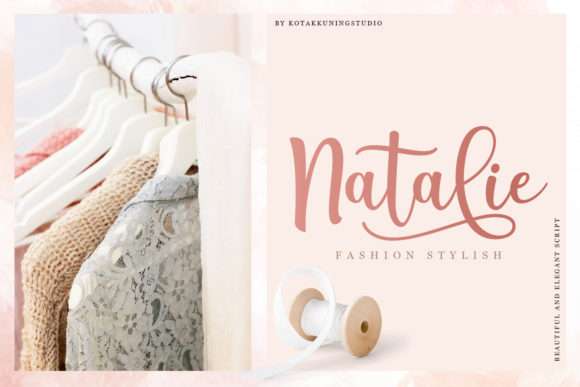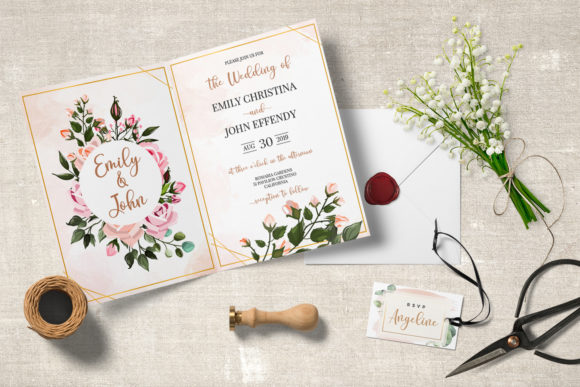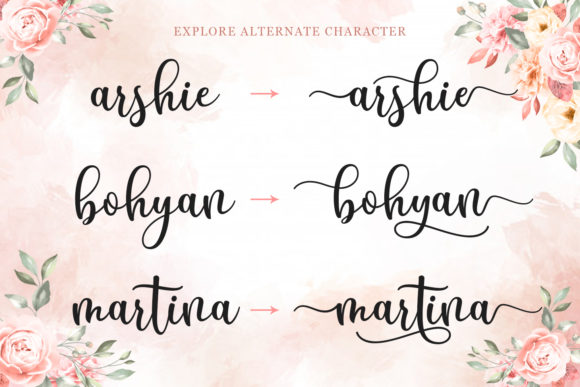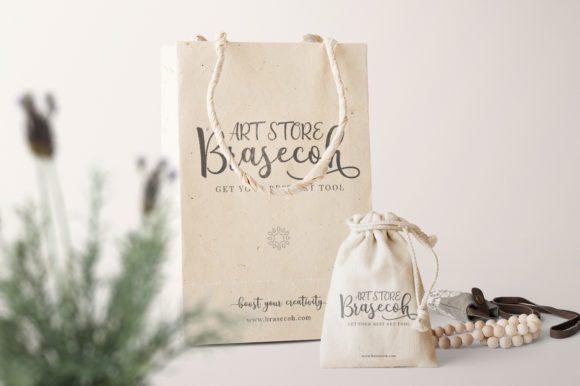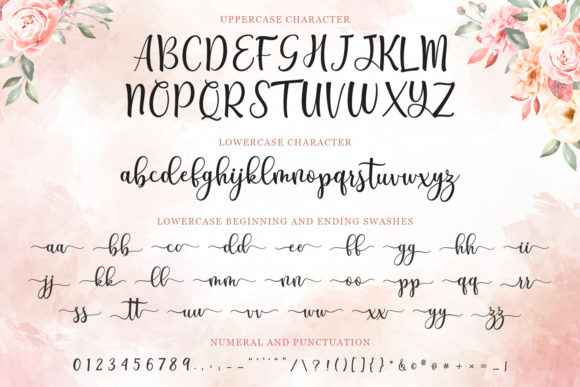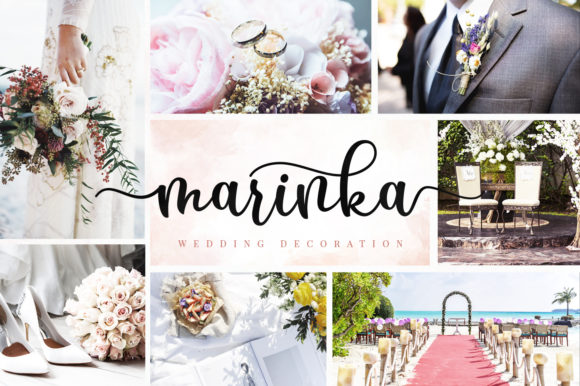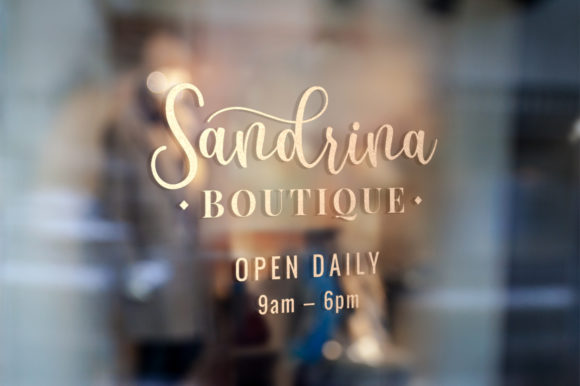
HomeScript FontsBreyhana Font Script Fonts Breyhana Font FacebookXPinterestWhatsApp Breyhana Font Poster 2 Breyhana Font Poster 3 Breyhana Font Poster 4 Breyhana Font Poster 5 Breyhana Font Poster 6 Breyhana Font Poster 7 Breyhana Font Poster 8 About Breyhana Font Breyhana is a sweet and stunning script that will easily add a personal feel to your next design idea. DOWNLOAD NOW People also explored Fallunt Font Sandwich Spread Font The Flowers Font Blesolen Font Social Media Networks Font Bee Love Font Circus Font Revalyna Font Runday Font 382 0 TagsBreyhana Font Previous articleBroomstx FontNext articleShington Script Font LEAVE A REPLY Cancel reply Comment: Please enter your comment! Name:* Please enter your name here Email:* You have entered an incorrect email address! Please enter your email address here Website: Save my name, email, and website in this browser for the next time I comment. Personal Use Free Alligator Font Personal Use Free Read more about this font Pelmeshka Personal Use Free Read more about this font Rennoya Personal Use Free Read more about this font Urkelian Personal Use Free Read more about this font BLOG Using Fonts in Digital Marketing: Tips to Strengthen Your Brand Identity In the realm of digital marketing, every visual element plays a crucial role in shaping a brand's identity, and fonts are no exception. The... How to Cut Any Font on Cricut: Convert a Font to SVG (Free) Exploring Font Trends 5 Fonts That Will Dominate Design Trends in 2026